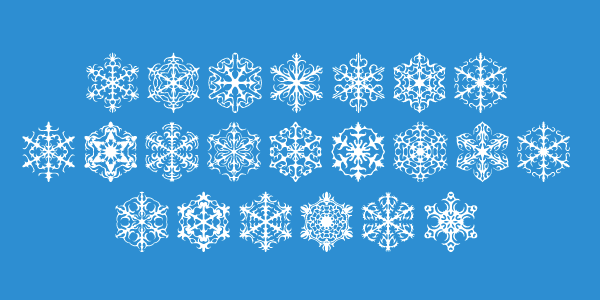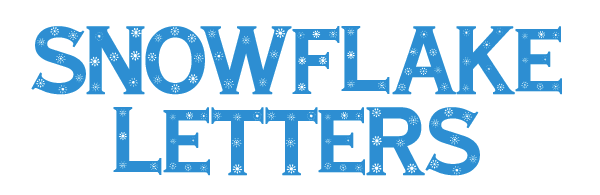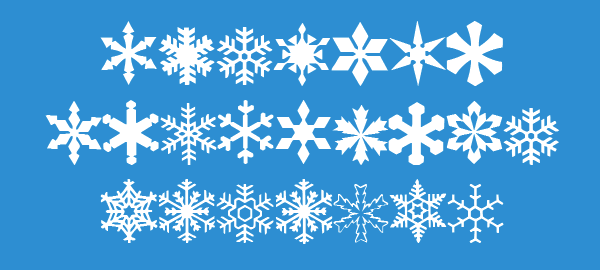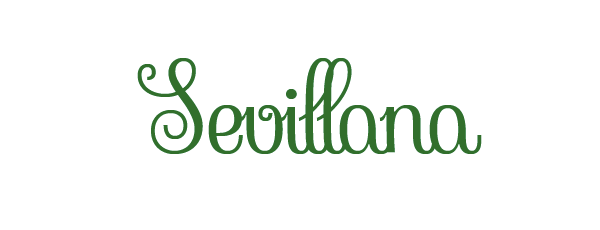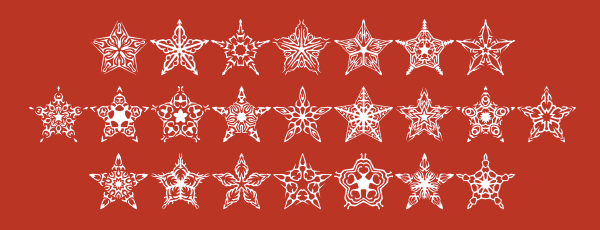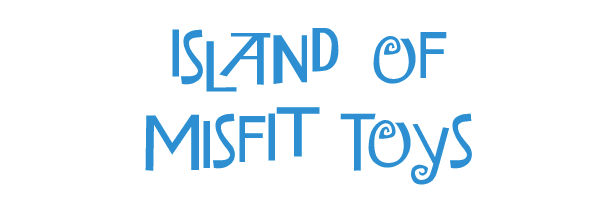
The Twelve Free Fonts of Christmas
Hope you were all good boys and girls this year so your holiday wishes come true. And while we’re waiting for the man with the bag, here’s a collection of fun and free for commercial use Christmas fonts for you to enjoy.
May your days be merry and bright. And may all your kerning be tight.
Bonus:
For fans of the classic holiday TV specials like “Rudolph the Red Nosed Reindeer” and “Santa Claus is Coming to Town”